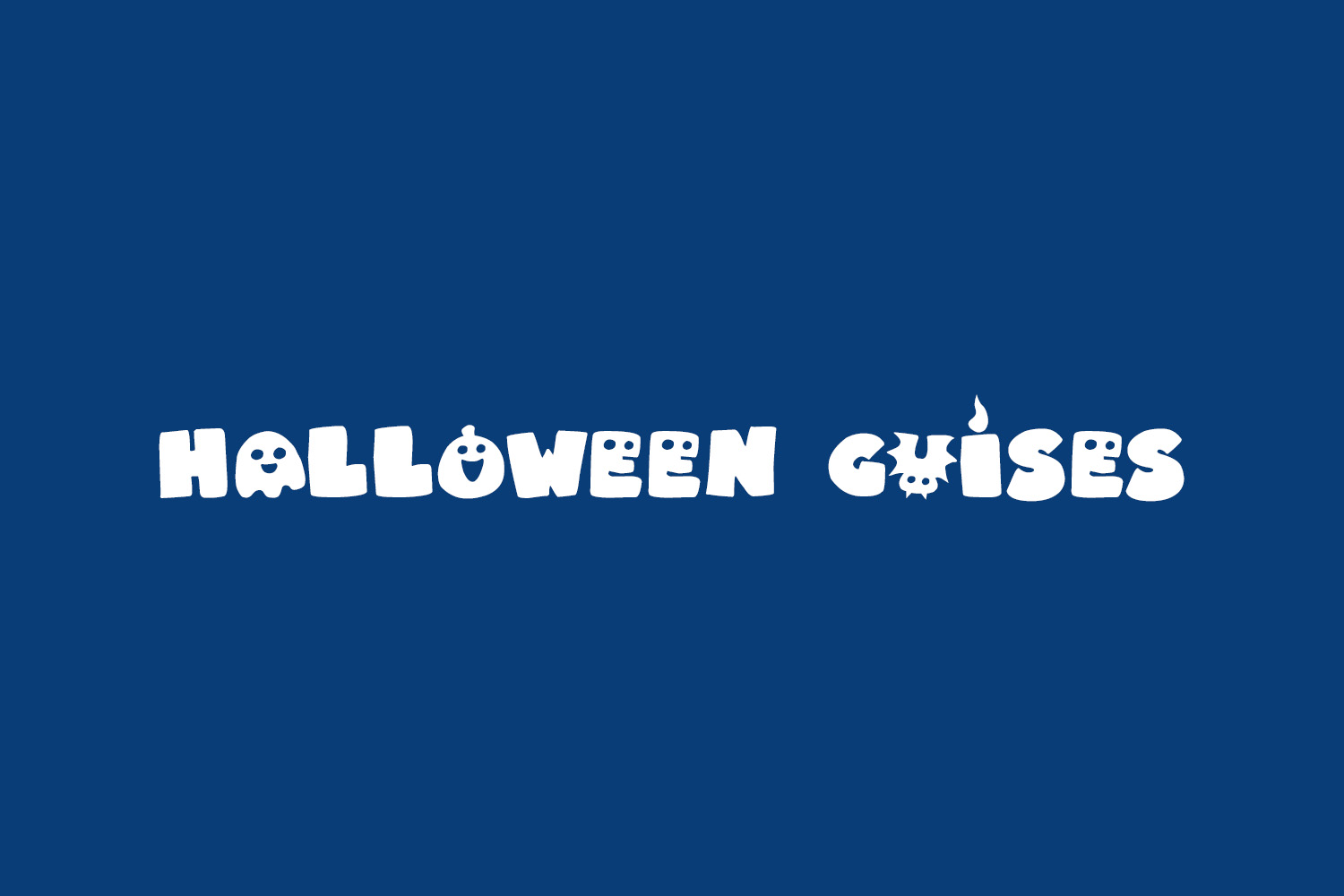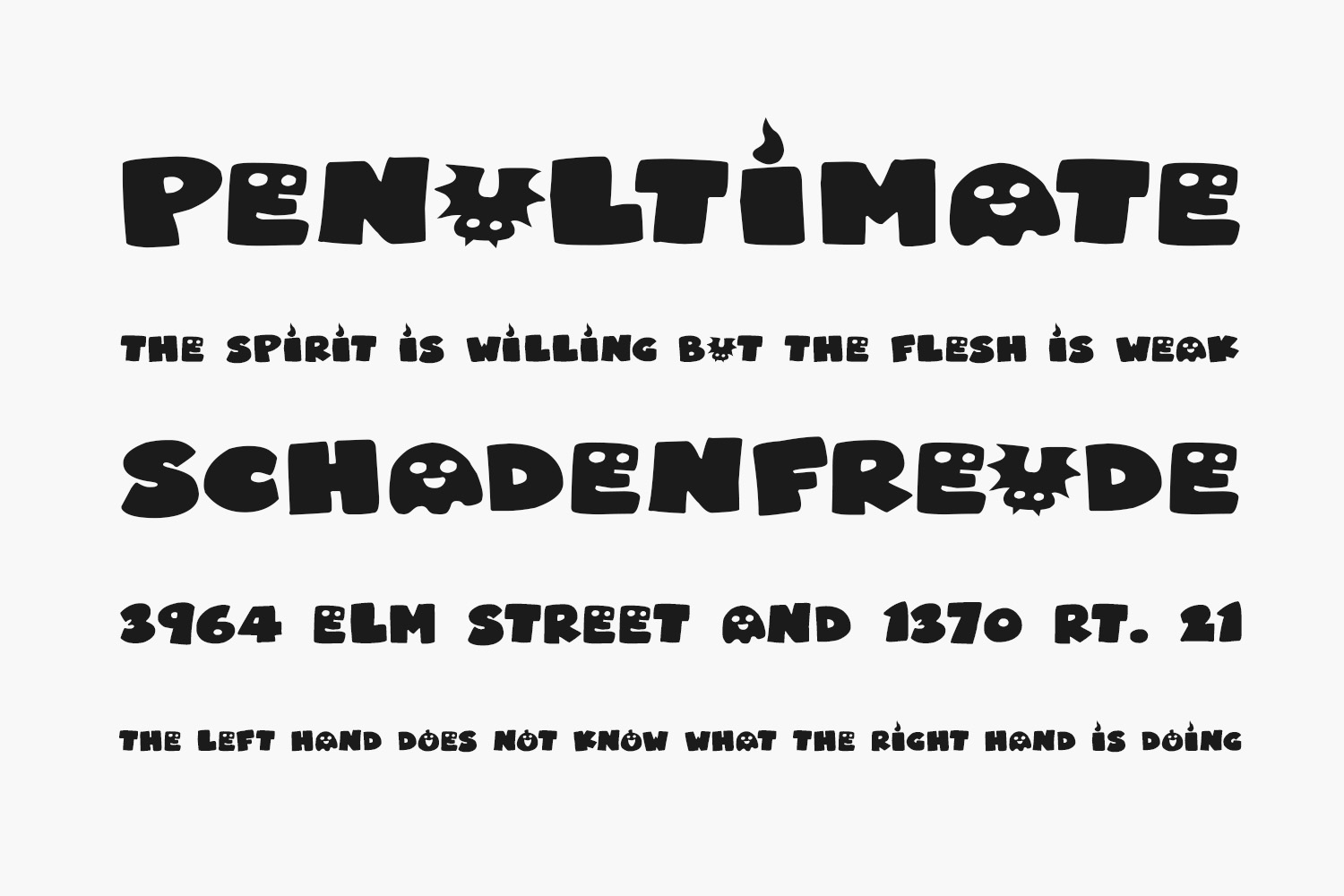
Halloween Guises Free Font Family is an adorable spooky font designed with Halloween in mind, featuring charming character images in place of vowels. It’s the ideal choice for festive gatherings, cards, decorations, and all your family-friendly spooky needs. Halloween Guises Free Font Family is free for personal use only. Please purchase the full version for commercial use.
Halloween Guises Regular The quick brown fox jumps over the lazy dog
Halloween Guises Italic The quick brown fox jumps over the lazy dog